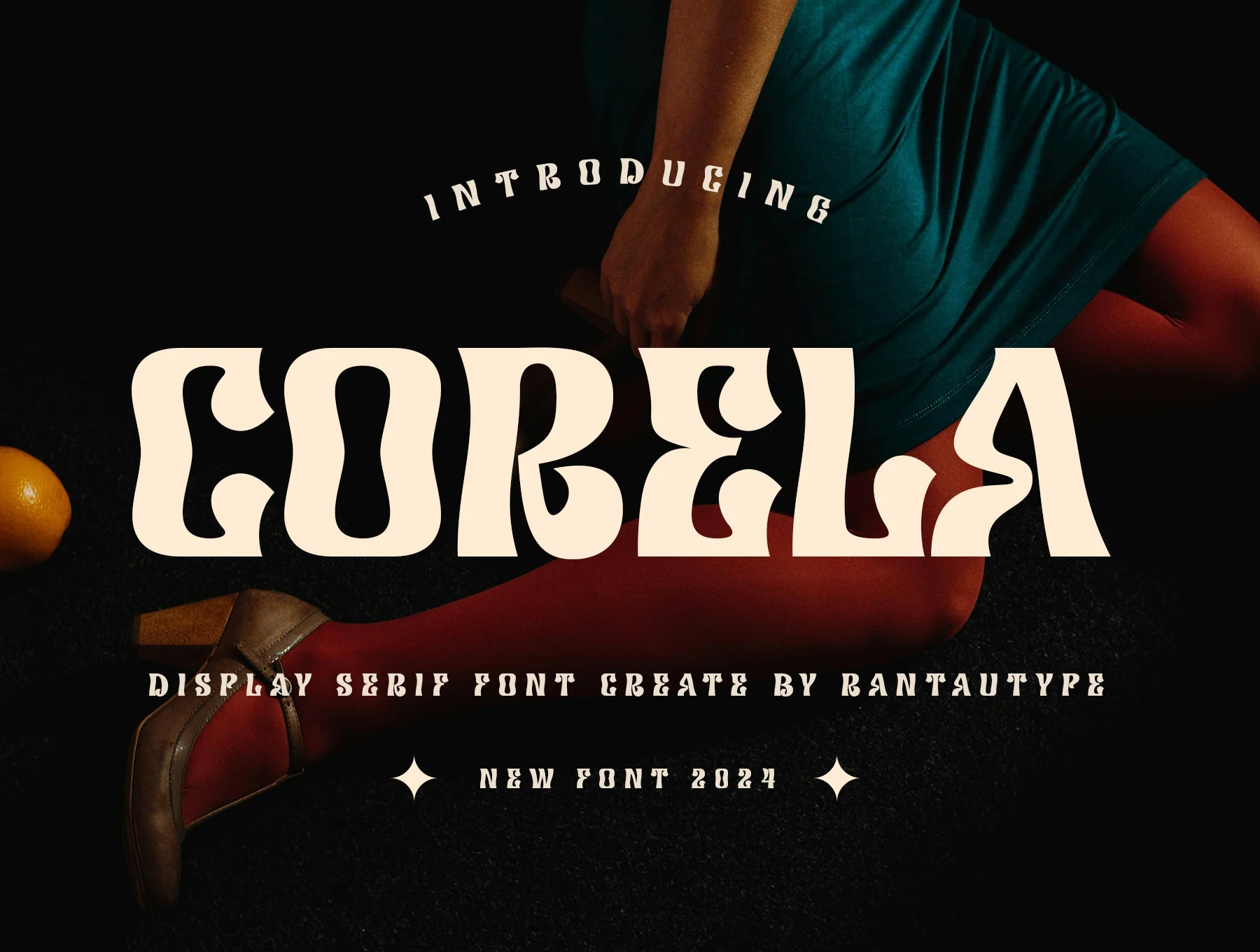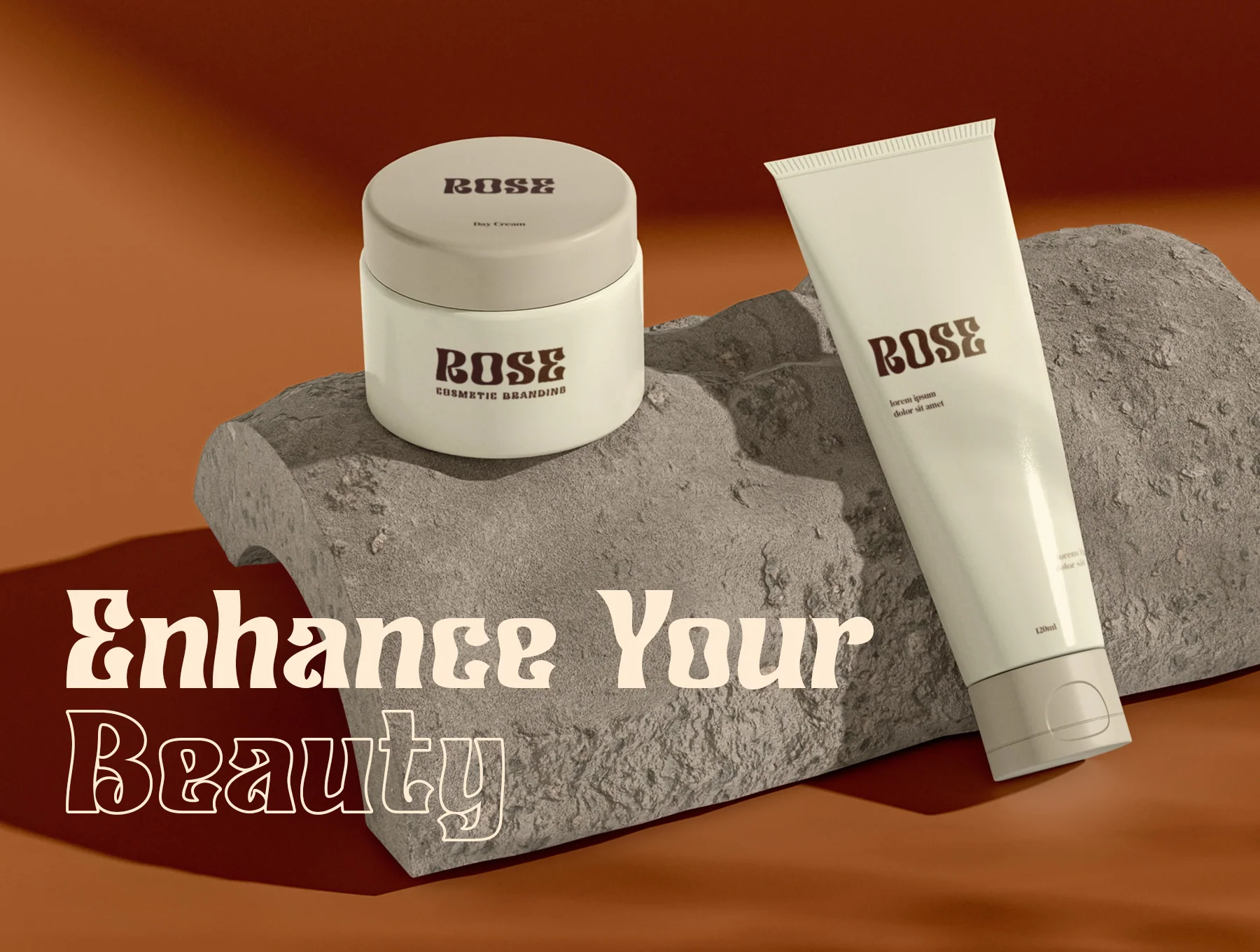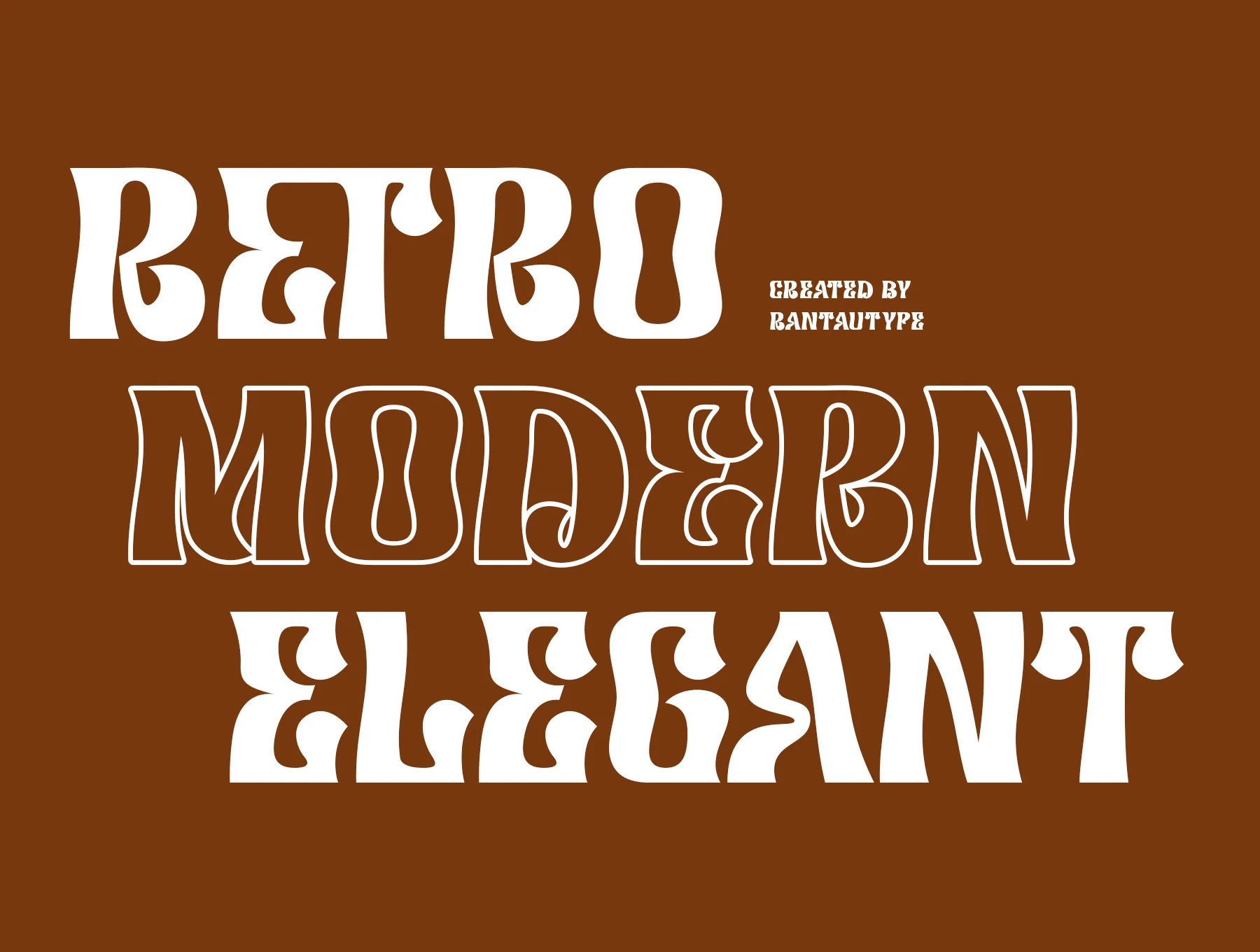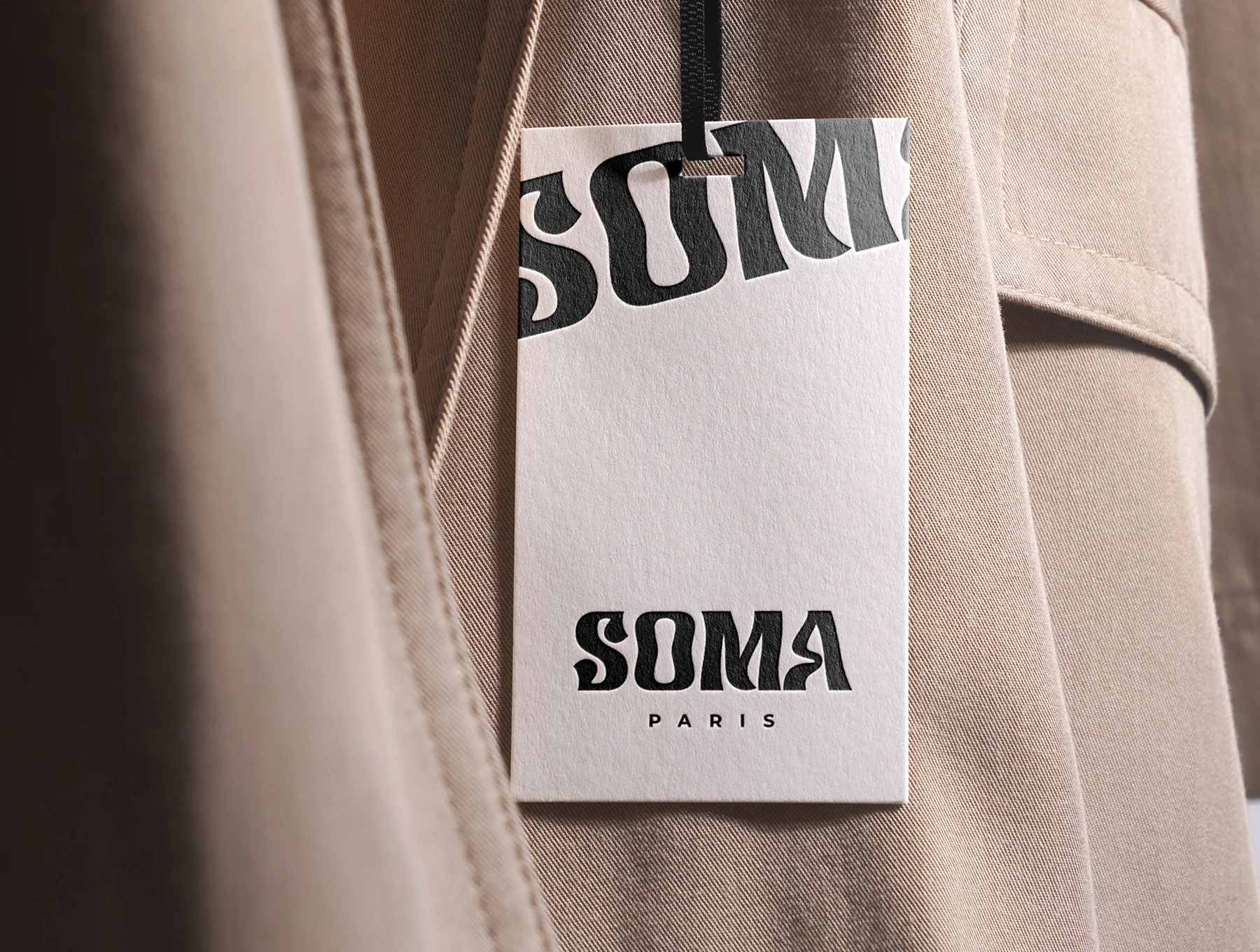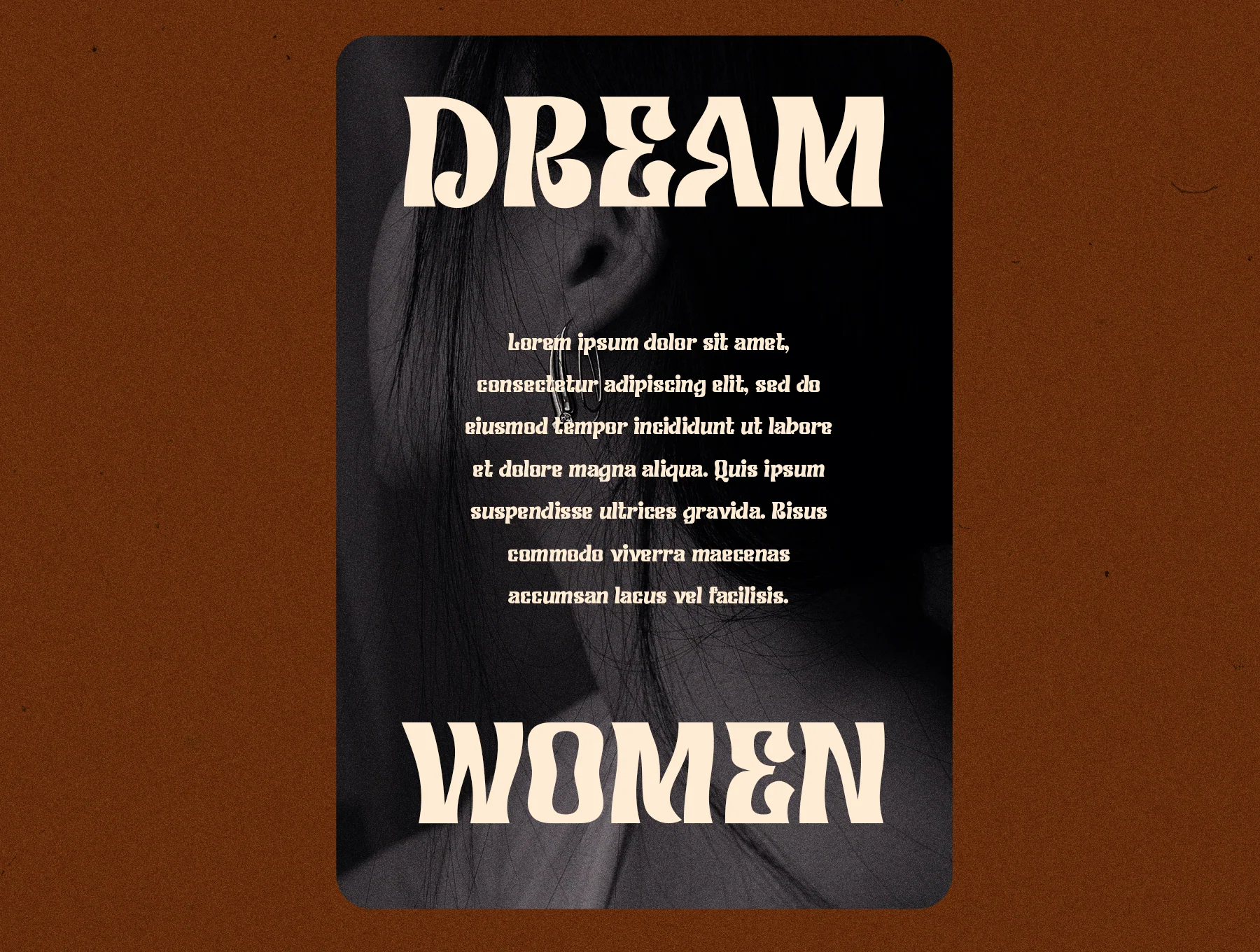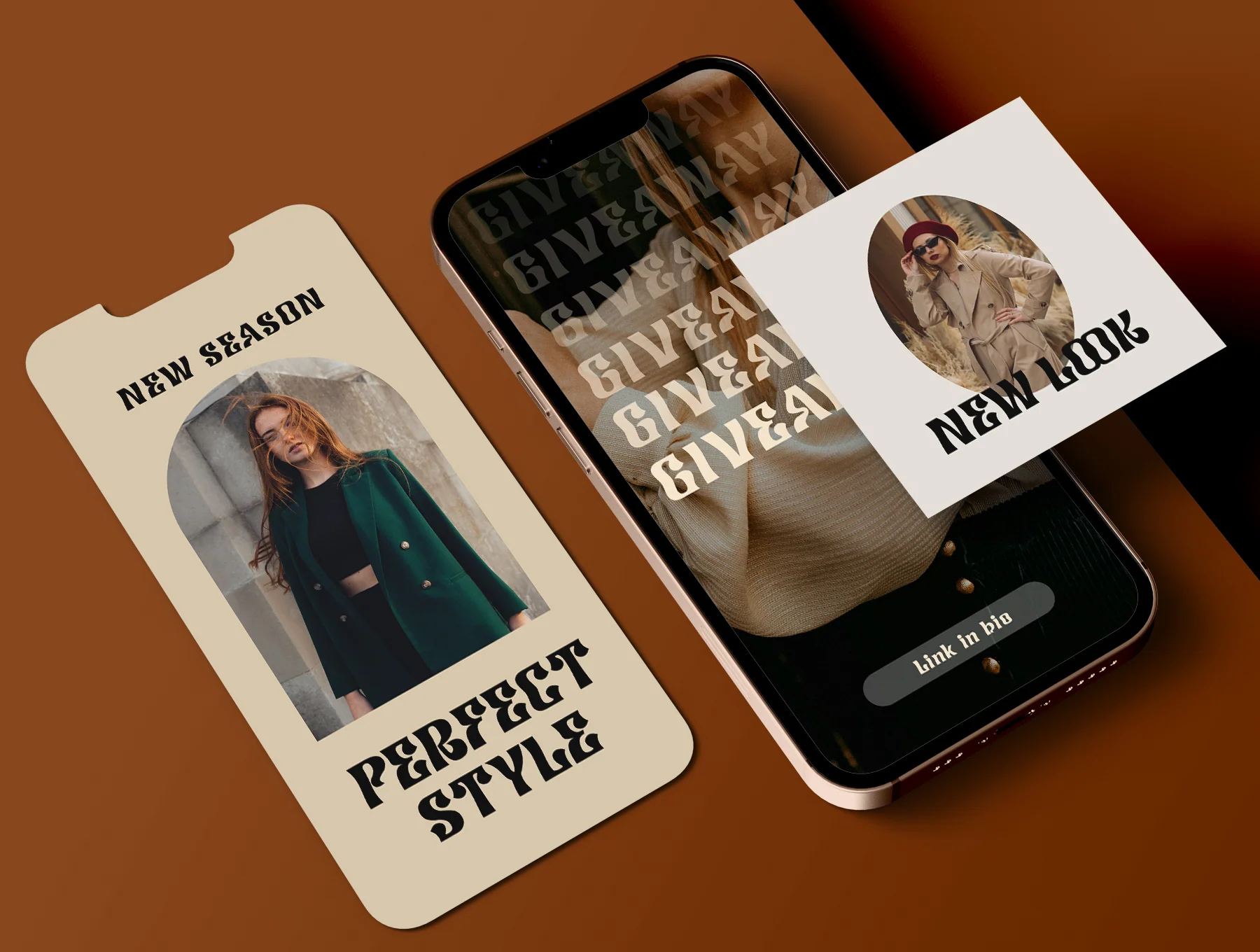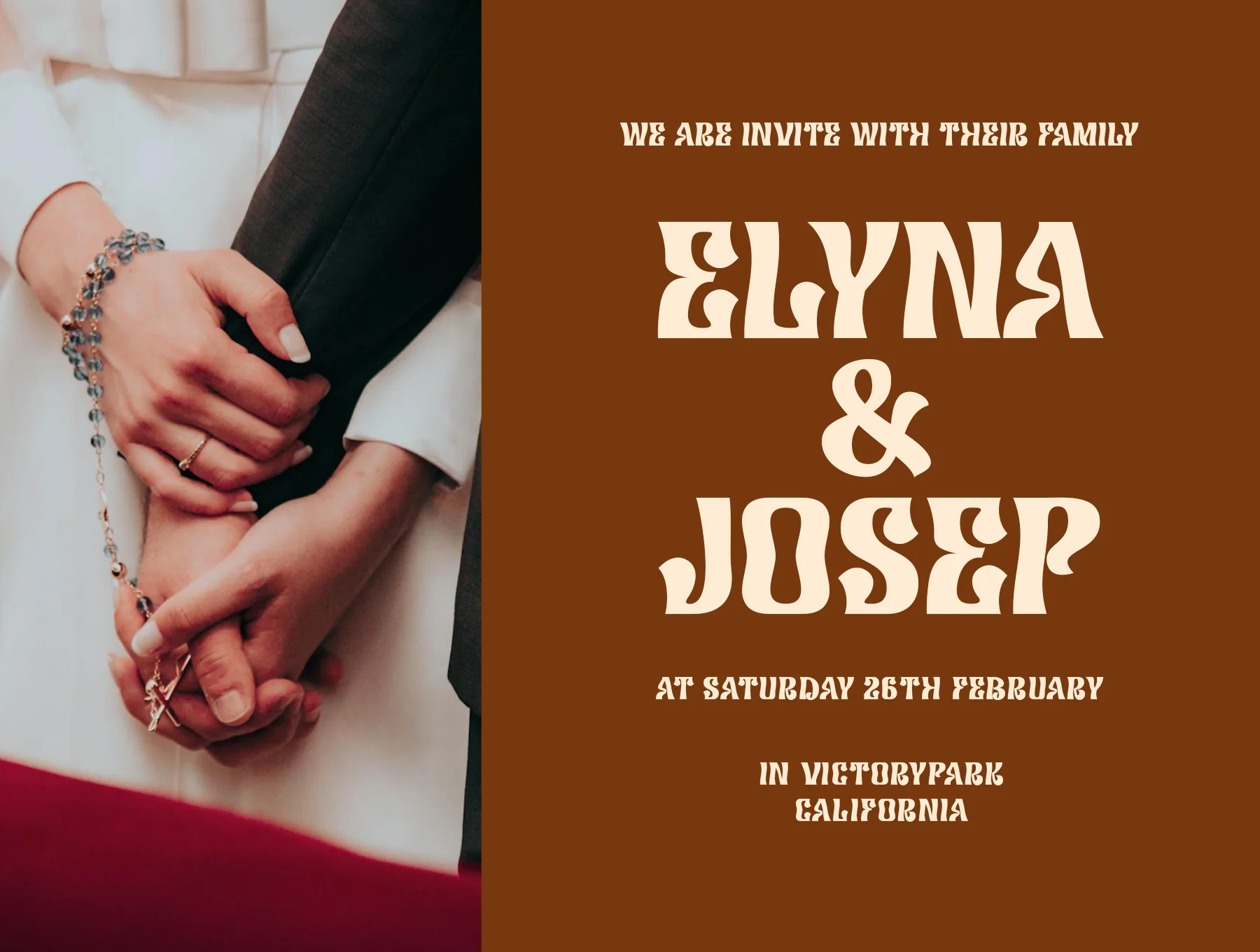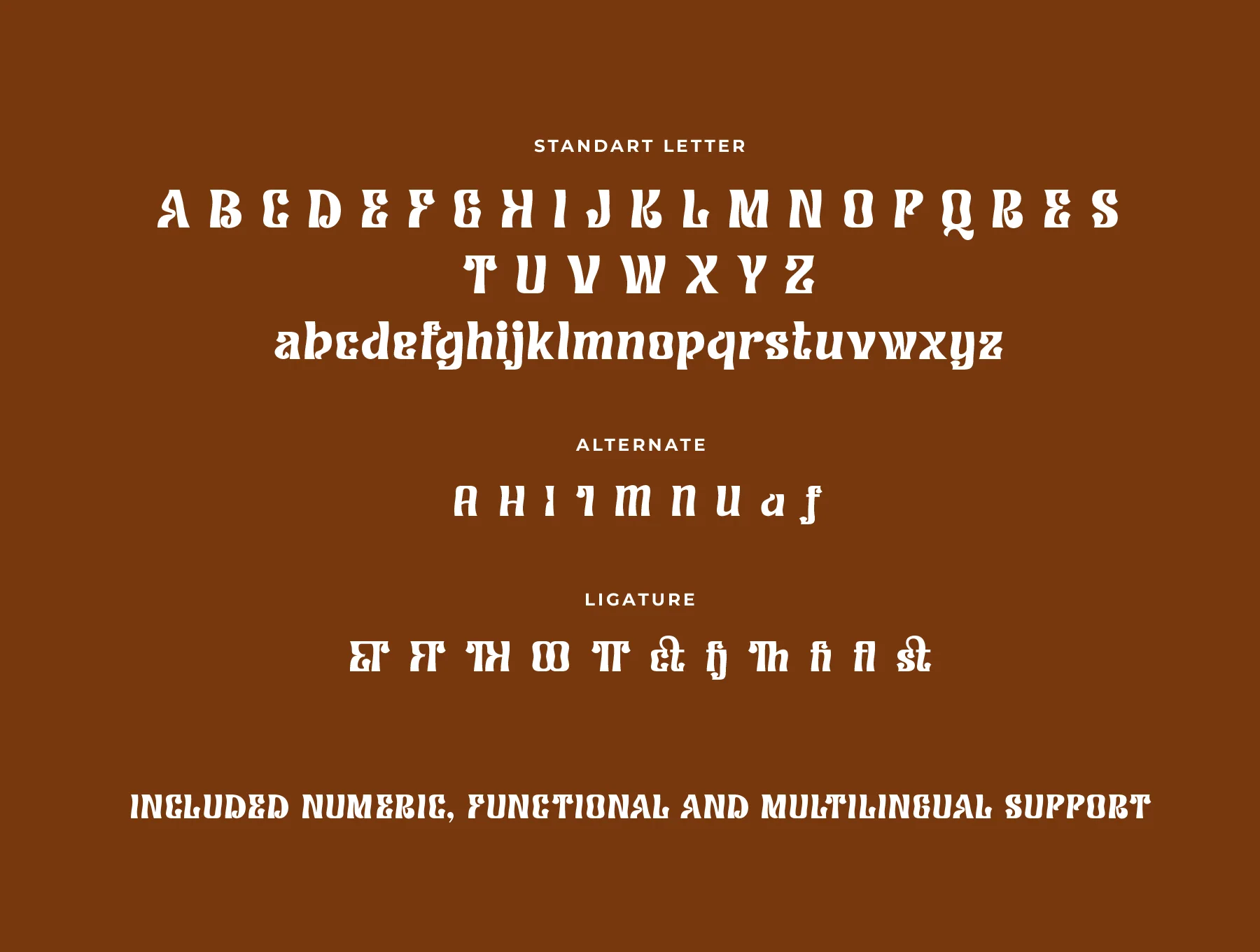
Corela Elegant Display Font
Sophisticated Display Typeface
Two font styles: regular and outline
Standard uppercase and lowercase letters
Numerals and functional characters
Alternate characters and ligatures
Two font styles: regular and outline
Standard uppercase and lowercase letters
Numerals and functional characters
Alternate characters and ligatures
Meet Corela by Rantautype, a graceful display serif with classic 19th-century inspiration, soft curves, and polished details. Ideal for logos, titles, covers, branding, magazines, and chic lifestyle projects. Includes Regular and Outline styles in OTF, TTF, WOFF, and WOFF2, with A–Z/a–z, numbers, symbols, alternates, ligatures, OpenType features, and broad multilingual support.